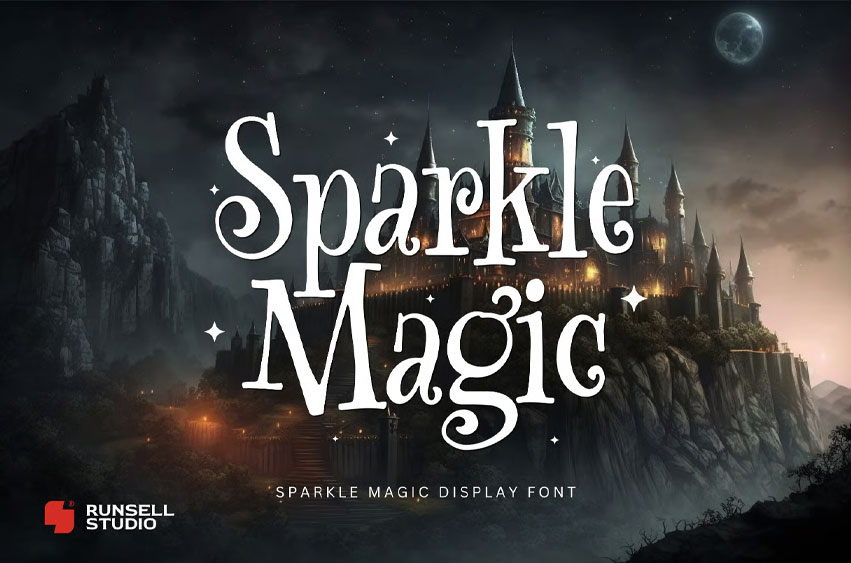
Sparkle Magic Font
Sparkle Magic Font is a chilling Halloween font shrouded in creepy mystery and gothic horror. Its sharp, haunted letterforms echo with evil energy—perfect for scary movie posters, horror titles, thriller covers, and witchy branding that crave a dark, sinister presence. Every stroke radiates spooky tension, conjuring monsters, death, and untold mysteries lurking in the shadows.
From haunted Halloween invitations to gothic death notes, Sparkle Magic transforms your designs into works of fear and fascination. Whether you’re crafting a witch’s curse poster, a deathly thriller headline, or a monster-filled horror display, this font captures the true spirit of darkness.